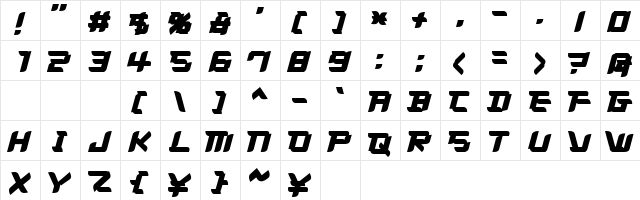
PB008 HIGHWAY STAR 2003 Regular Font Preview
PB008 HIGHWAY STAR 2003 Regular
Design Context for PB008 HIGHWAY STAR 2003 Typeface
PB008 HIGHWAY STAR 2003 is a composed and adaptable typeface that performs quietly and consistently across a wide range of design contexts.